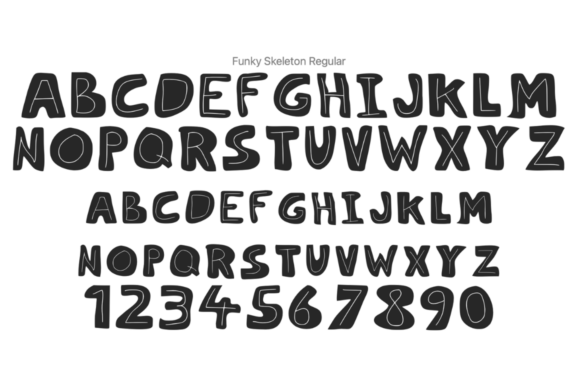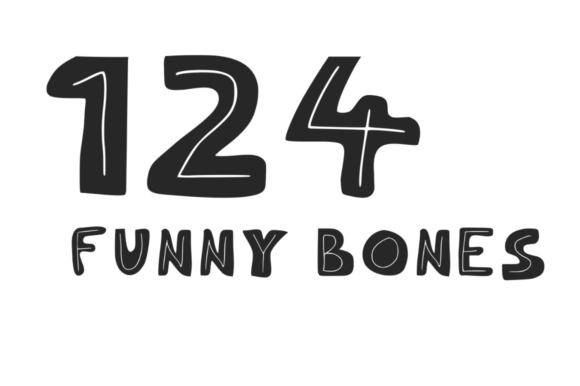
Introduction to Funky Skeleton Regular Font
Do you remember the excitement of creating a project and suddenly realizing the perfect font was missing? It’s a frustrating moment that can derail even the most creative of projects. But, what if you stumbled upon a font that not only solved that problem but also added an extra layer of fun and personality to your design? Enter the Funky Skeleton Regular Font, a modern display font that’s perfect for making a bold statement in your designs.
Whether you’re working on a design project that requires a high-quality, eye-catching font or simply want to add some flair to your next social media post, the Funky Skeleton Regular Font is a valuable resource that’s sure to deliver. With its transparent background and free download option, it’s an accessible design resource that’s available to everyone.
Key Features of Funky Skeleton Regular Font
- Unique blend of funk and skeleton-inspired design elements, perfect for creative projects.
- High-quality font suitable for a variety of design resources, including posters, flyers, and social media graphics.
- Transparent background, making it easy to place over images or other design elements.
- Designed for use in digital and print design, ideal for creative professionals and hobbyists alike.
- Perfect for adding a touch of whimsy and personality to your design projects, from logos to packaging.
Honest Review: Funky Skeleton Regular Font
I recently had the chance to play with the Funky Skeleton Regular Font, and I must say it’s been a fun addition to my design resource library. ✨ The font’s quirky, hand-drawn aesthetic is perfect for any creative project that needs a bit of whimsy.
One of the things I appreciate about this font is its high quality. The characters are well-designed and consistently rendered, even at larger sizes. I also appreciate that it’s available for free download, which makes it a great option for designers working on a budget.
Here are some of the key features I like about the Funky Skeleton Regular Font:
- Unique, hand-drawn design
- High-quality rendering, even at larger sizes
- Transparent background option for easy use in design projects
My only criticism is that the font may not be suitable for all types of projects. ⚠️ For example, it may not be the best choice for projects that require a more formal or professional tone. However, for creative projects or designs that need a bit of personality, the Funky Skeleton Regular Font is a great option.
Overall, I’m impressed with the Funky Skeleton Regular Font and would definitely recommend it to designers looking for a fun, high-quality font to add to their design resource library.
To get the most out of the Funky Skeleton Regular Font, experiment with different font sizes, colors, and styles to create a unique and eye-catching design. You can also use the font in combination with other design elements, such as graphics and images, to create a high-quality design.
The Funky Skeleton Regular Font is commonly used in creative projects, such as graphic design, web design, and digital art. It’s also a great resource for designers who want to create a unique and high-quality design with a transparent background.